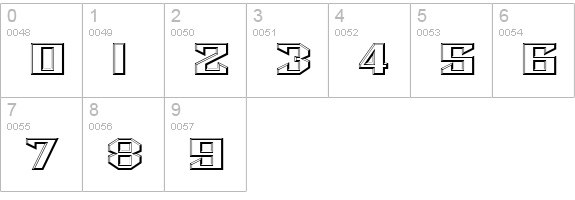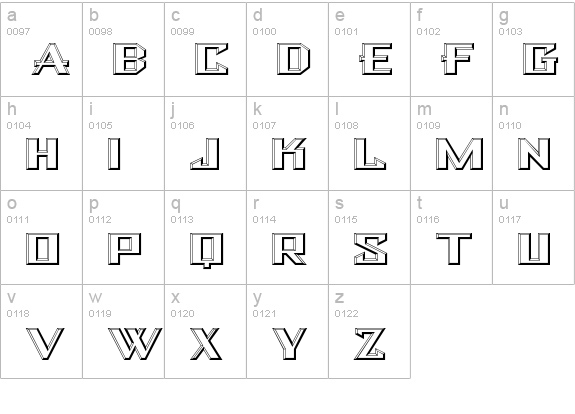
Bulwark NF font is a versatile and modern typeface that exudes strength and sophistication. With its bold lines and sharp angles, this font is perfect for making a statement in any design project. Whether you are creating a powerful logo, a sleek poster, or a striking website, Bulwark NF font will elevate your work to the next level. The best part? Bulwark NF font is completely free to download at FontsMarket.com. This means you can access this high-quality font without any cost, making it a valuable addition to your font collection. Don't miss out on the opportunity to enhance your designs with the distinctive style of Bulwark NF font. Download it today and start creating impactful visuals that stand out from the crowd.